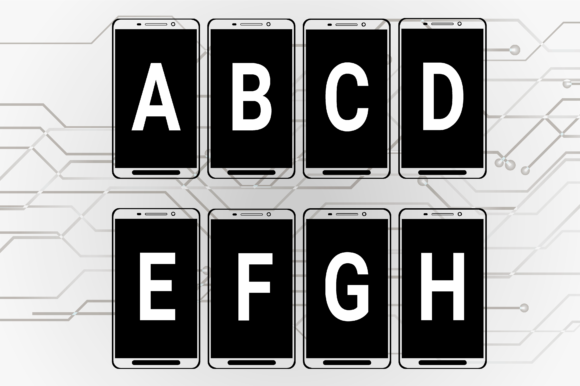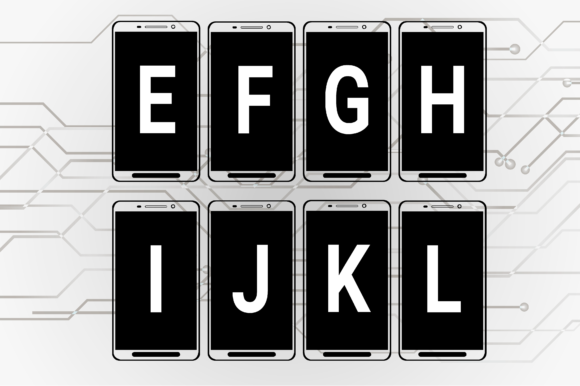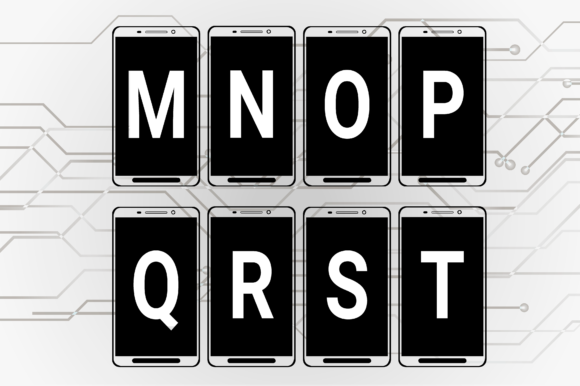
Introduction to DDroid Font
DDroid is a cool decorative font.
It works incredibly well for interactive and dynamic projects, whether they’re logos, brands, ads or others .
Why Choose DDroid Font?
DDroid Font offers exceptional quality and versatility, making it a valuable addition to your design toolkit. Whether you’re creating for personal projects or commercial use, DDroid Font delivers professional results.